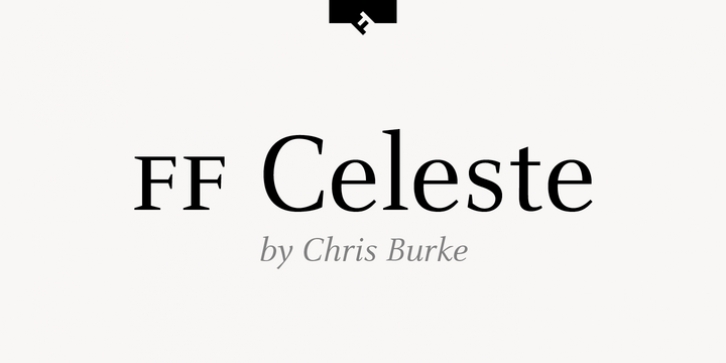
Publisher: FontFont
British type designer Chris Burke created this serif FontFont in 1994.
The family has 10 weights, ranging from Regular to Black (including italics) and is ideally suited for book text, editorial and publishing as well as logo, branding and creative industries.
FF Celeste provides advanced typographical support with features such as ligatures, small capitals, alternate characters, case-sensitive forms, fractions, and super- and subscript characters.
It comes with a complete range of figure set options – oldstyle and lining figures, each in tabular and proportional widths.
As well as Latin-based languages, the typeface family also supports the Cyrillic and Greek writing systems.
This FontFont is a member of the FF Celeste super family, which also includes FF Celeste Sans and FF Celeste Small Text.